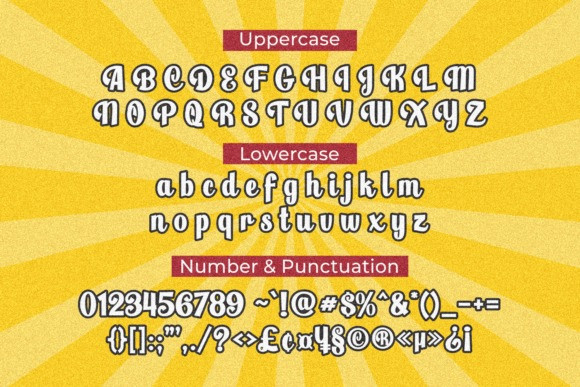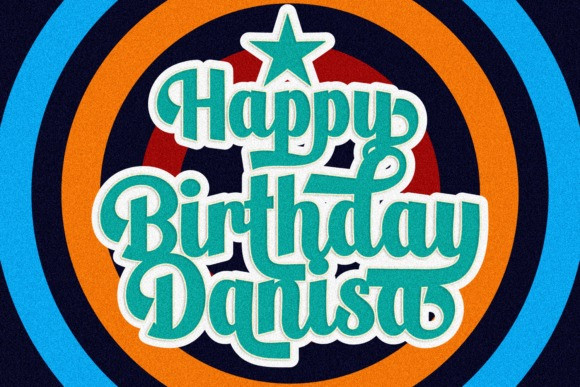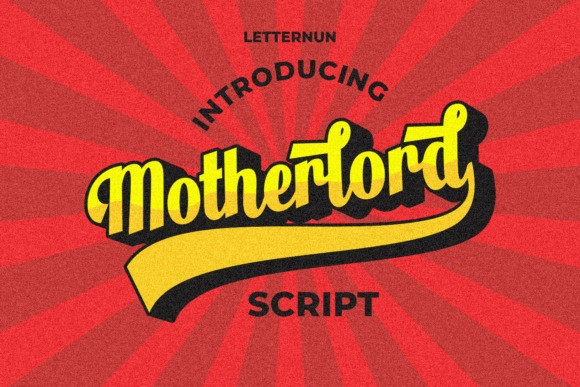
Motherlord Font
Motherlord Retro Font is a gorgeous and bold handwritten font, crafted to give your headlines and logotype projects a retro touch. This font reads as strong, confident, and dynamic and can add tons of nostalgic character to your designs.